25 Playful Canva Fonts
Want to add a little playful personality to your projects? Why not include some playful fonts?
When it comes to playful fonts, they have this unique charm that can instantly make any project fun, lively, and engaging. Whether you are creating a new social media campaign post, wedding invitation, or branding materials, these fonts can splash in some character that will make it stand out.
In this article, I will share a list of 25 playful Canva fonts. These fonts can be combined with minimalist fonts to create a unique twist.
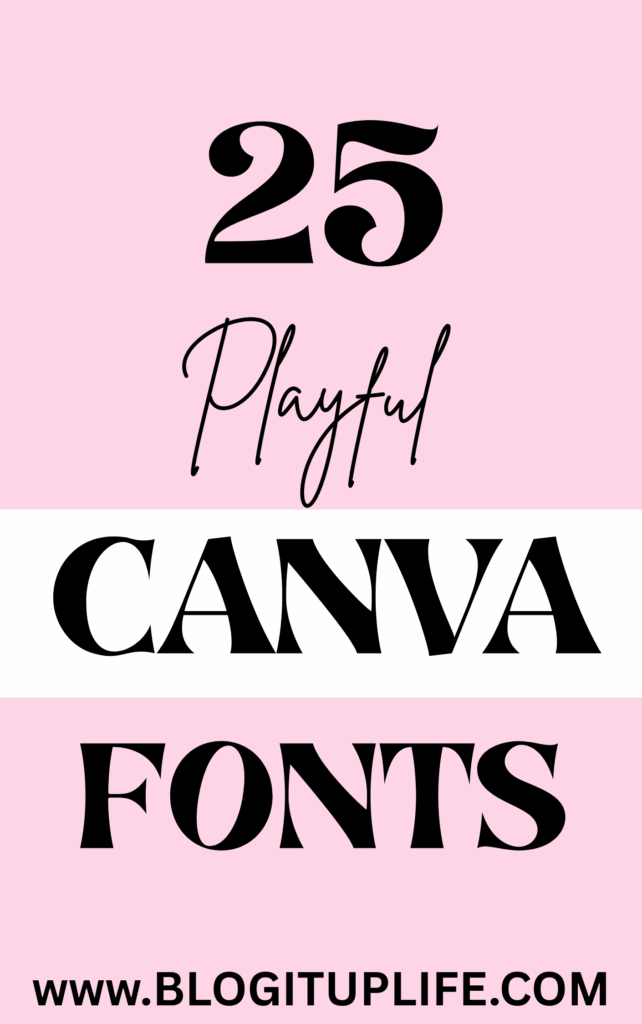
25 Playful Canva Fonts
1. Apricots:
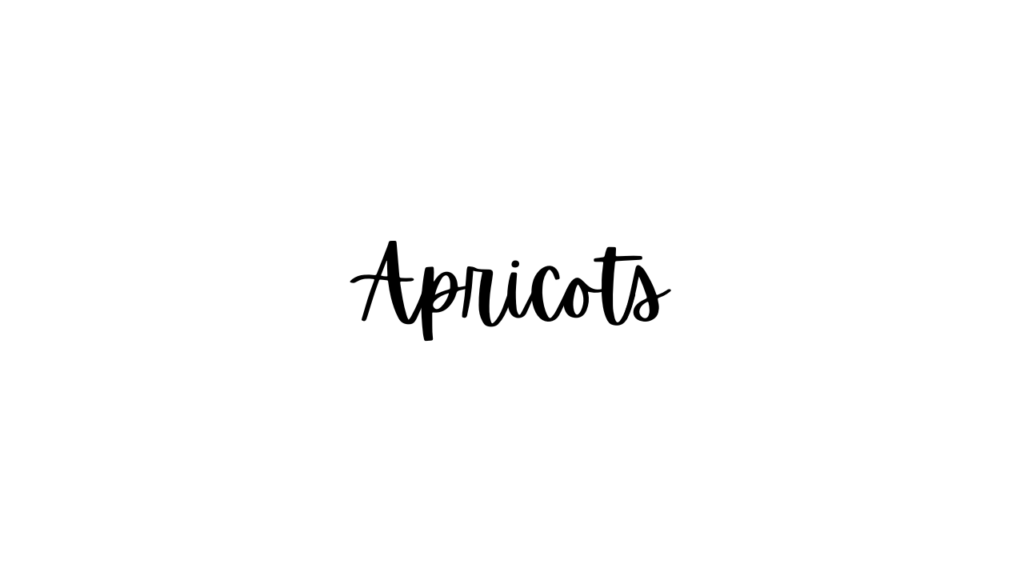
2. TAN New York:
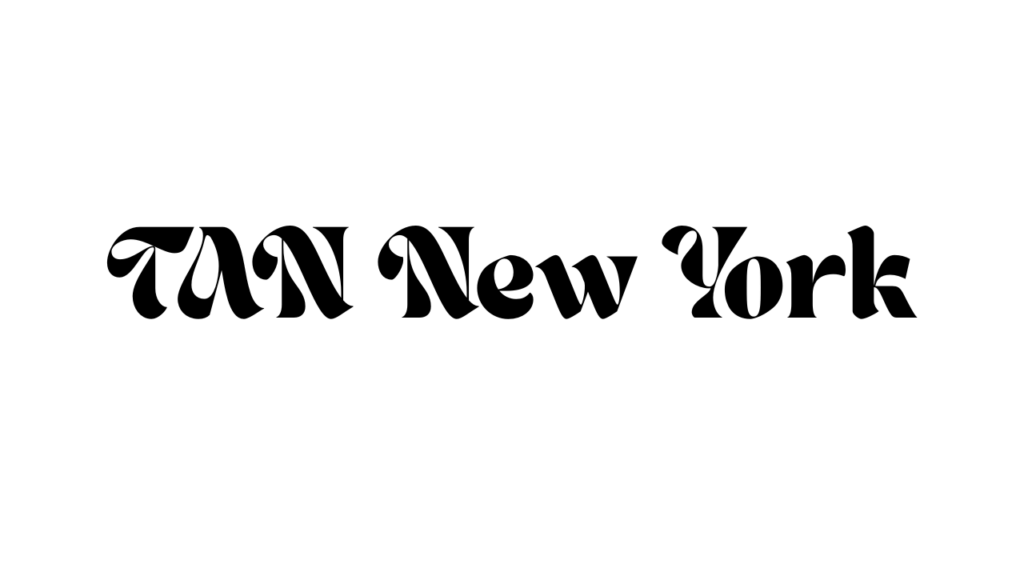
3. Sego:
4. Genty:
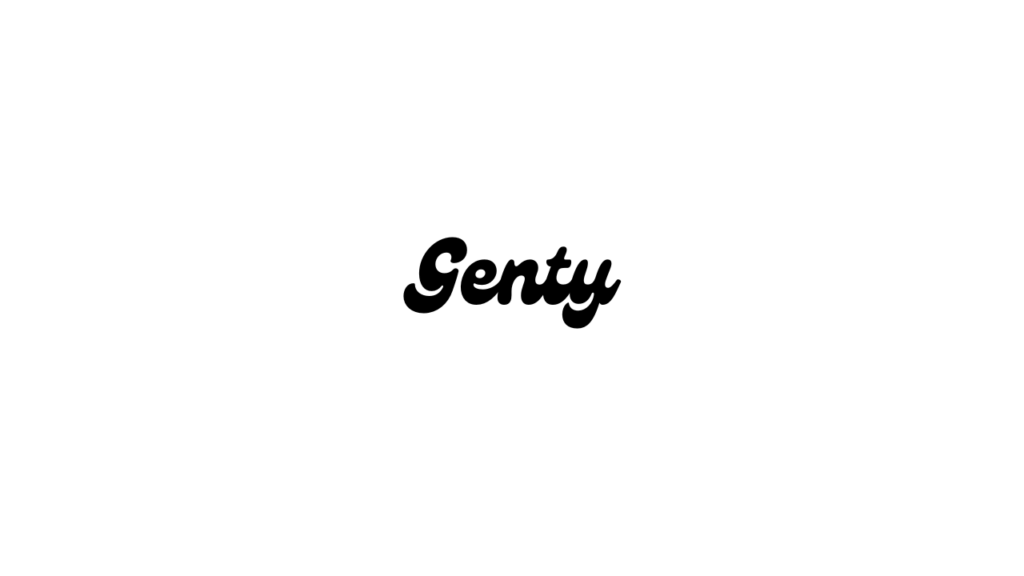
5. Bellaboo:
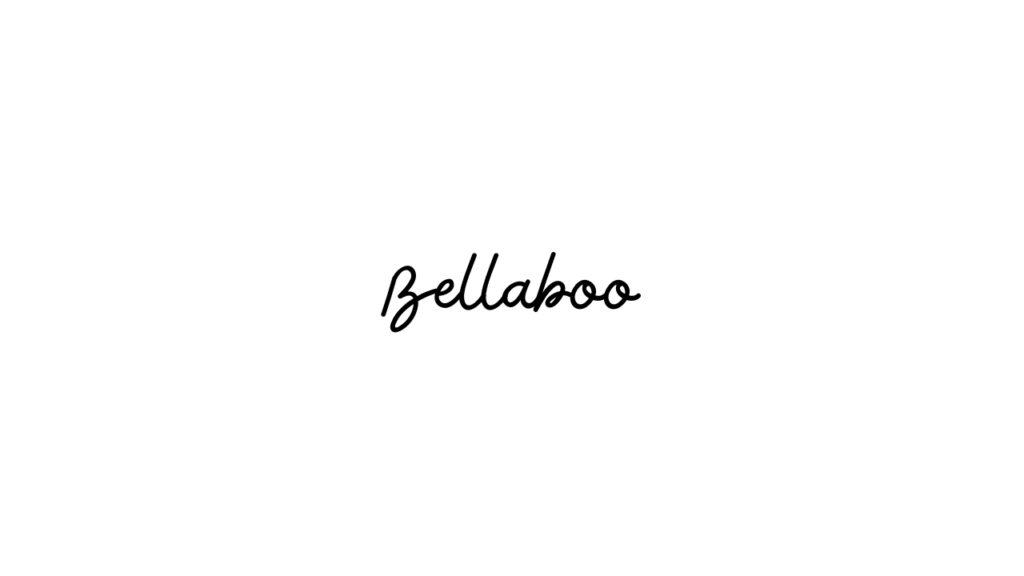
6. ITC Blaze:
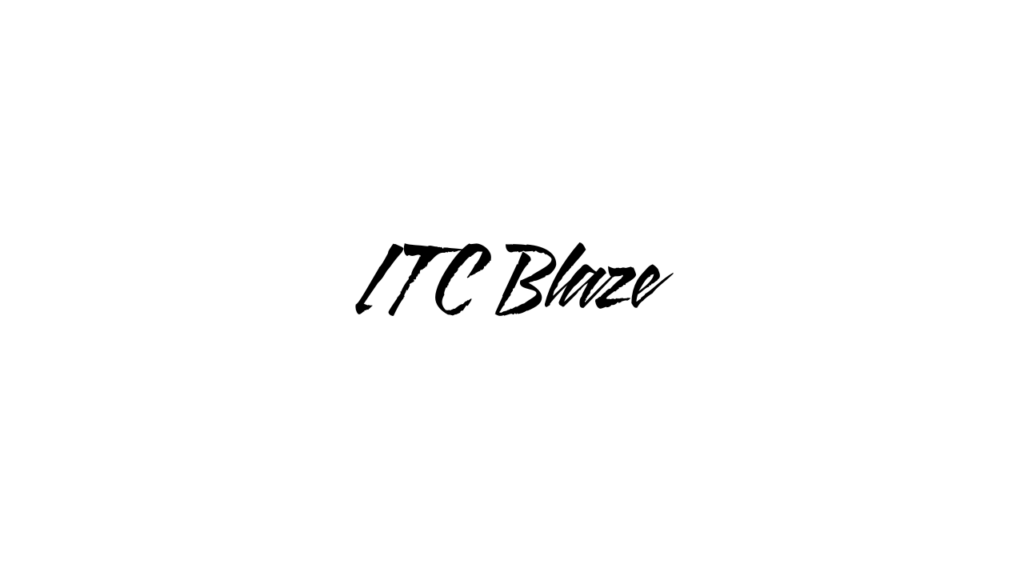
7. Pacifico:
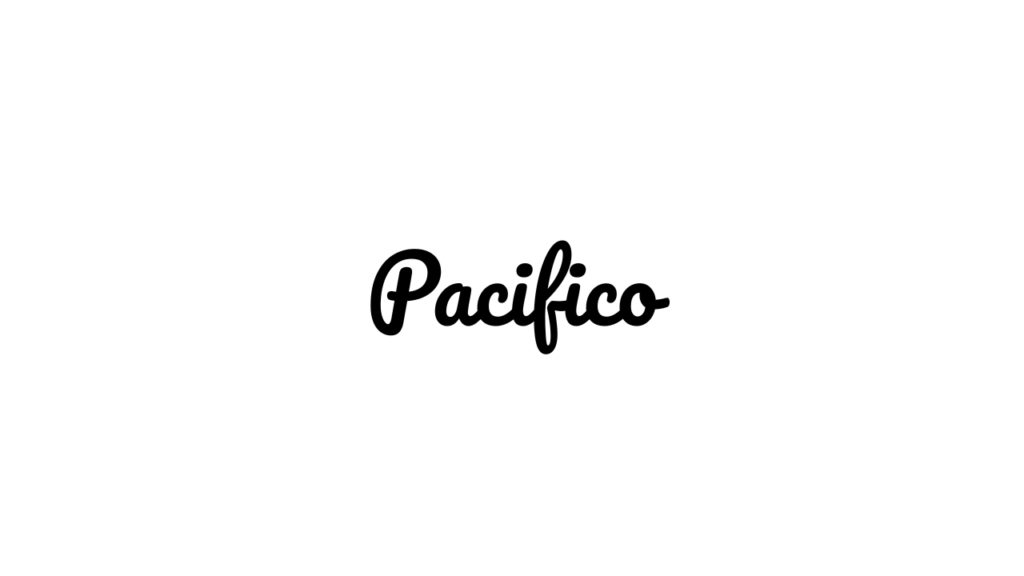
8. Playlist Script:
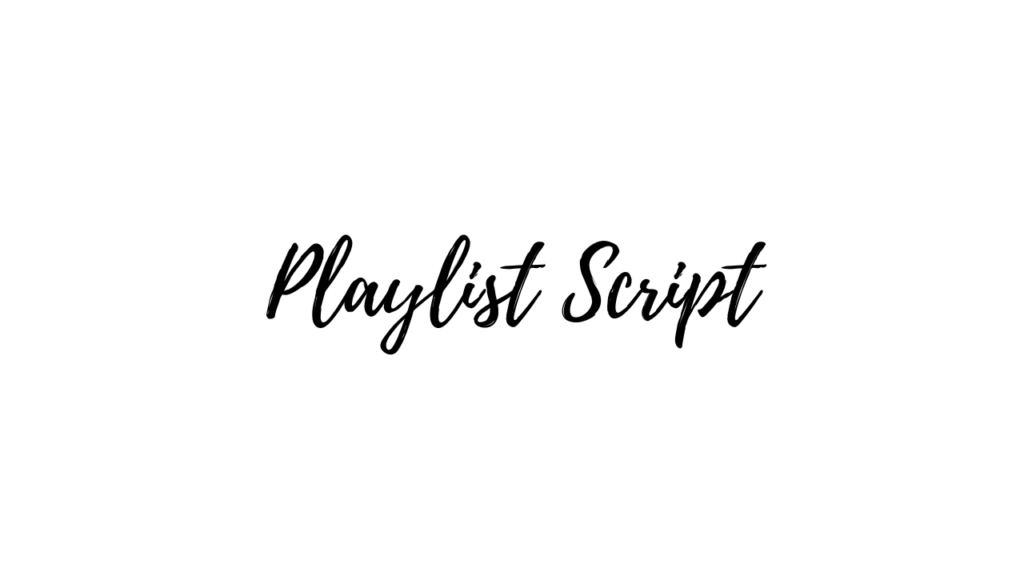
9. More Sugar:
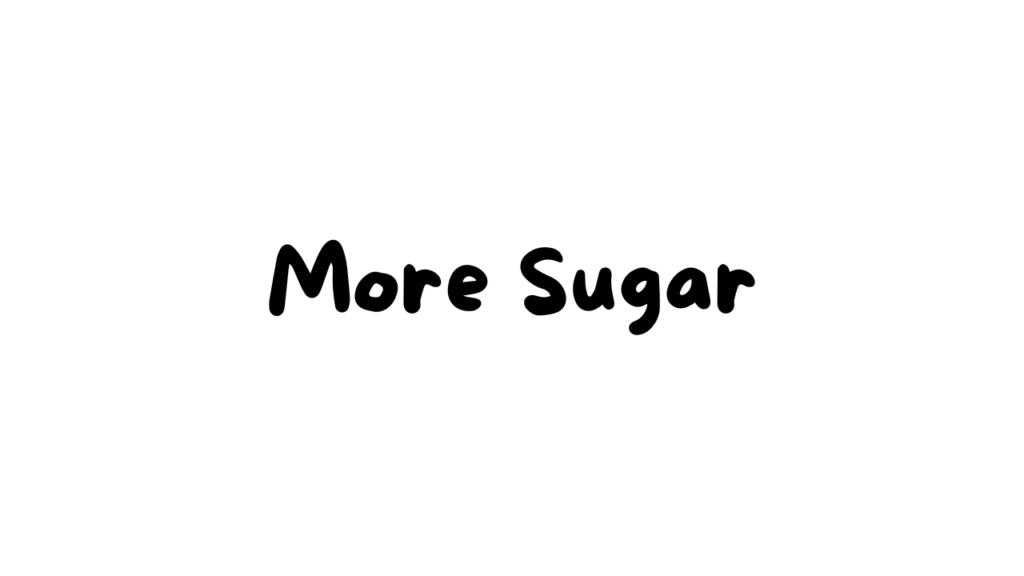
10. Pirou:
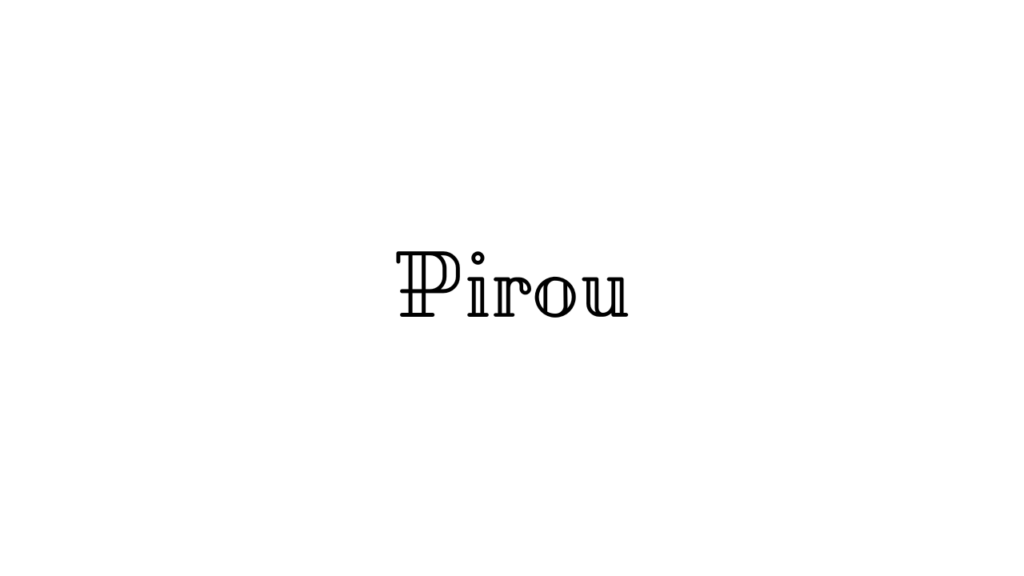
11. Kaushan Script:
12. EDO:
13. Diplomata SC:
14. Rig Solid Bold Halftone:
15. Made Barista:
16. Wellfleet:
17. Besom:
18. Jingleberry:
19. Mogra:
20. Atma:
21. Lifelogo:
22. Lemon Tuesday:
23. Was DokrakNP:
24. AC Gogoia:
25. Brusher:
Conclusion
I hope you find this list of playful Canva fonts helpful. I know this list is short, but Canva is a huge platform. The more you dig in, the more you find. The best part about these fonts is that they are free and can be used immediately in your projects.